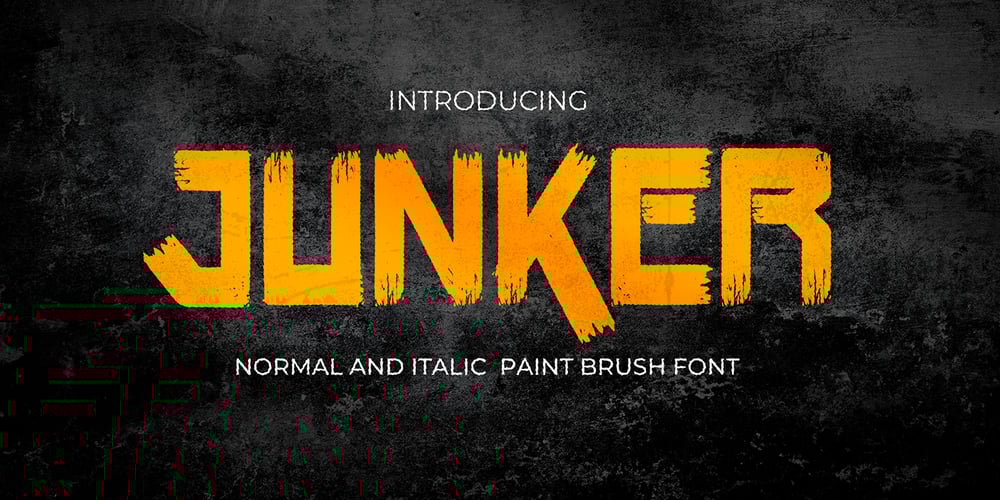
Junker Font Family was designed by Abdul Malik Wisnu, Anang Fibriyanto and published by Gassstype. Junker contains 1 styles and family package options. Introducing our latest display typeface called Junker – Normal And Italic Paint Brush Font with a natural style and dramatic movement can make your logotype become more interesting. Best Vintage font and multilingual support. inspired by the decorative arts and architecture movement